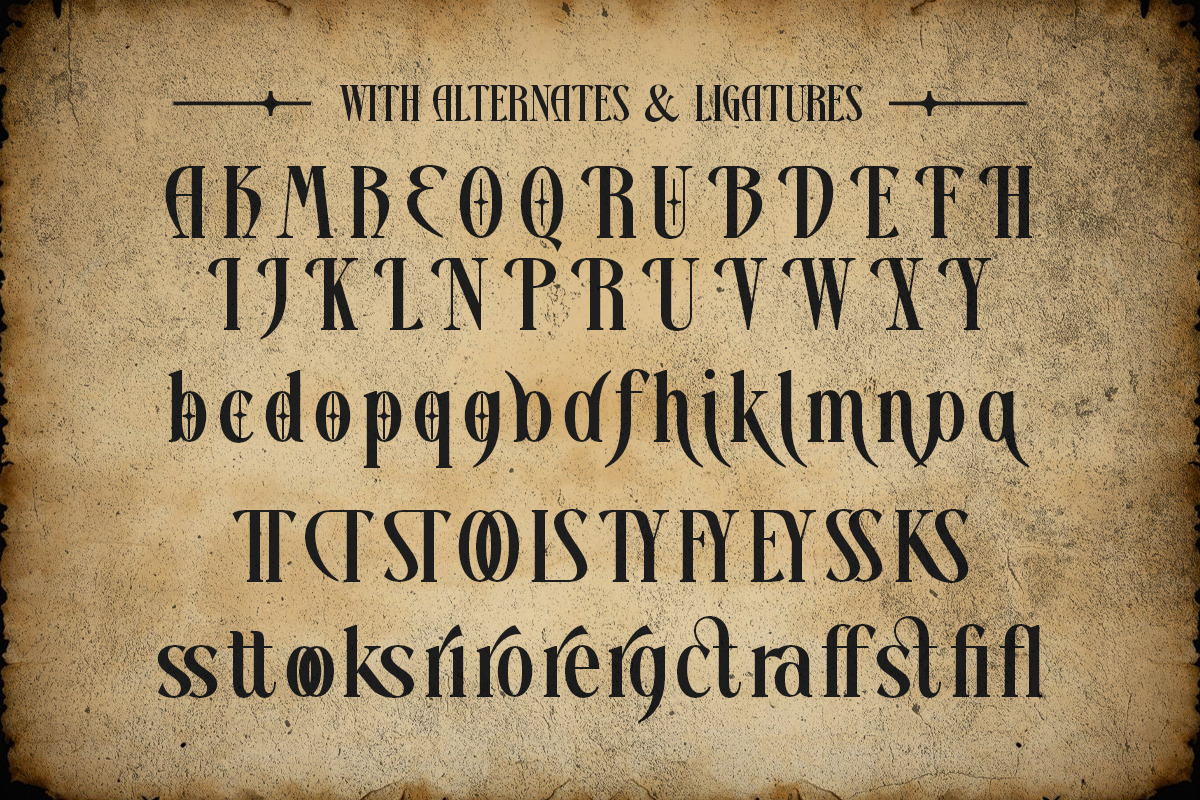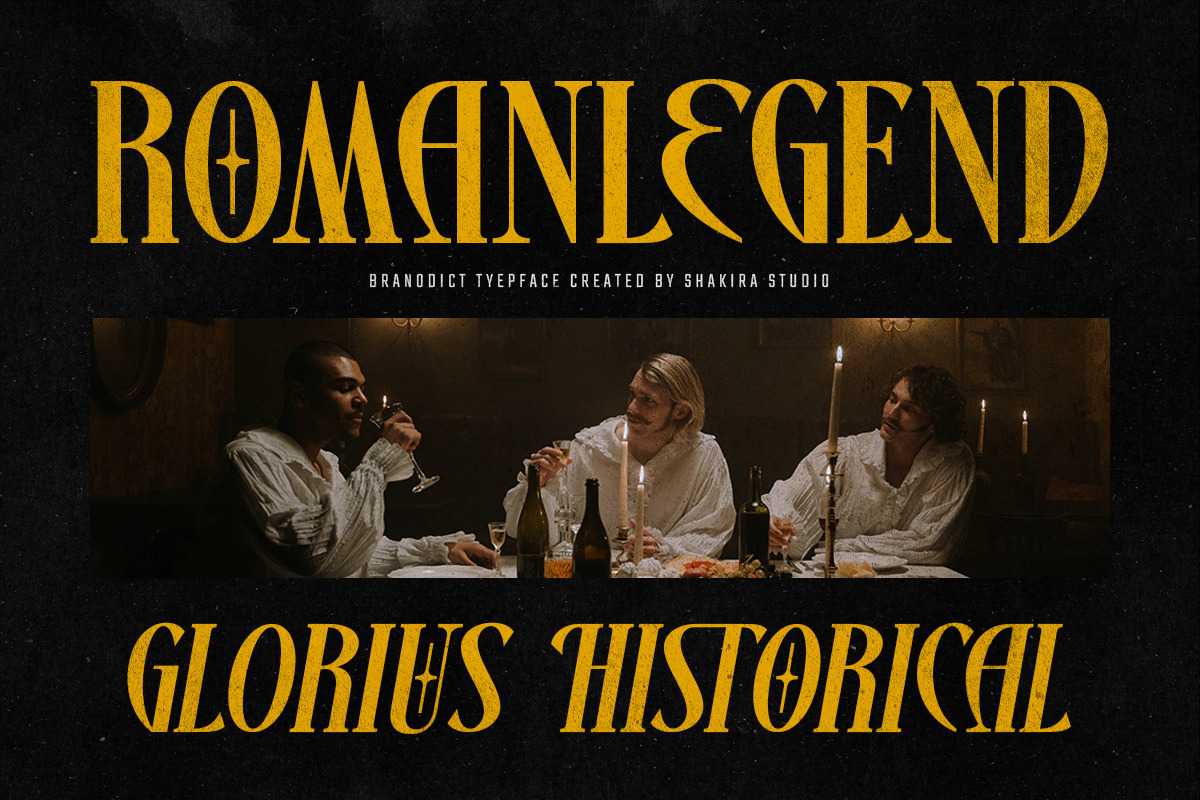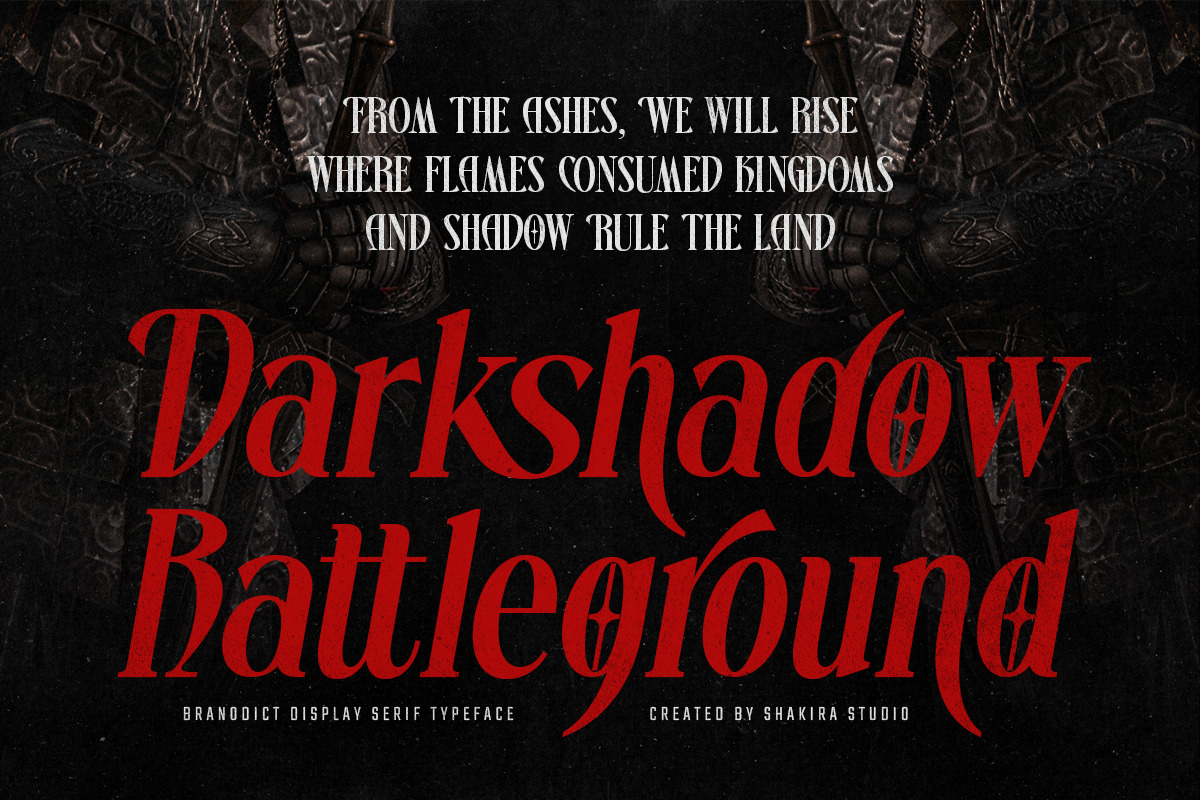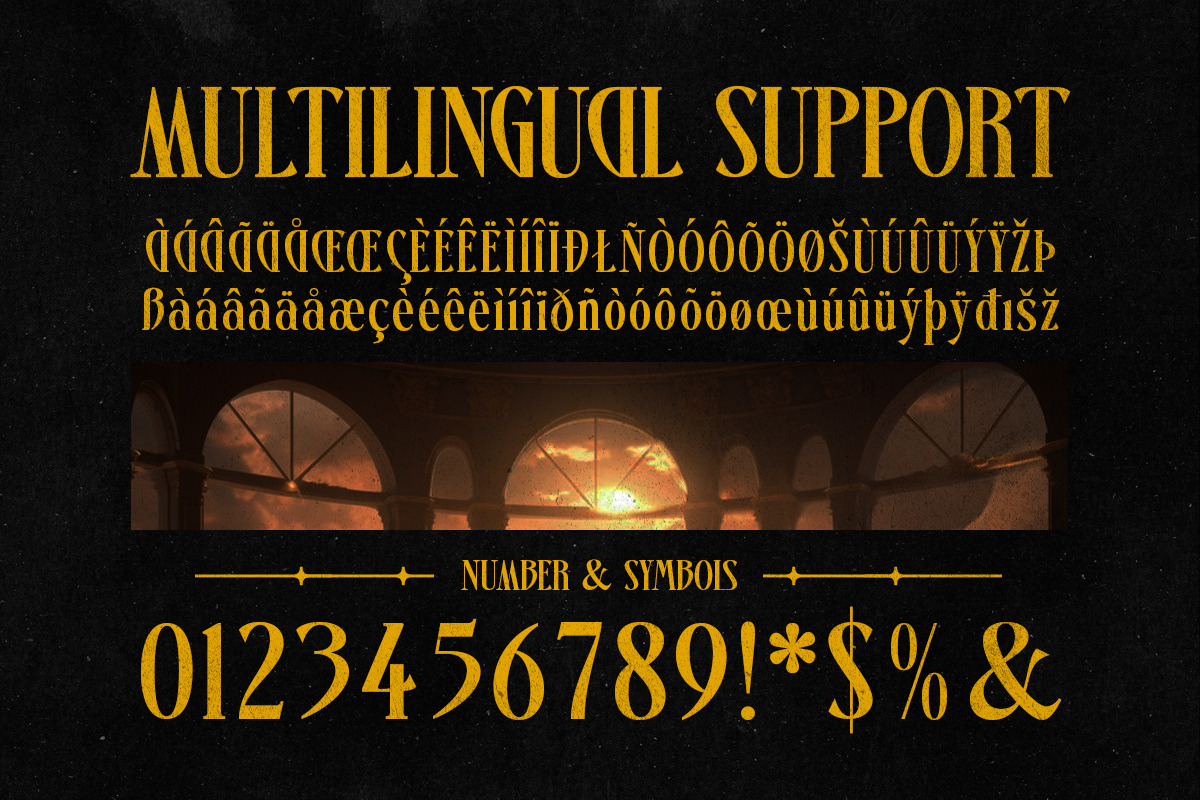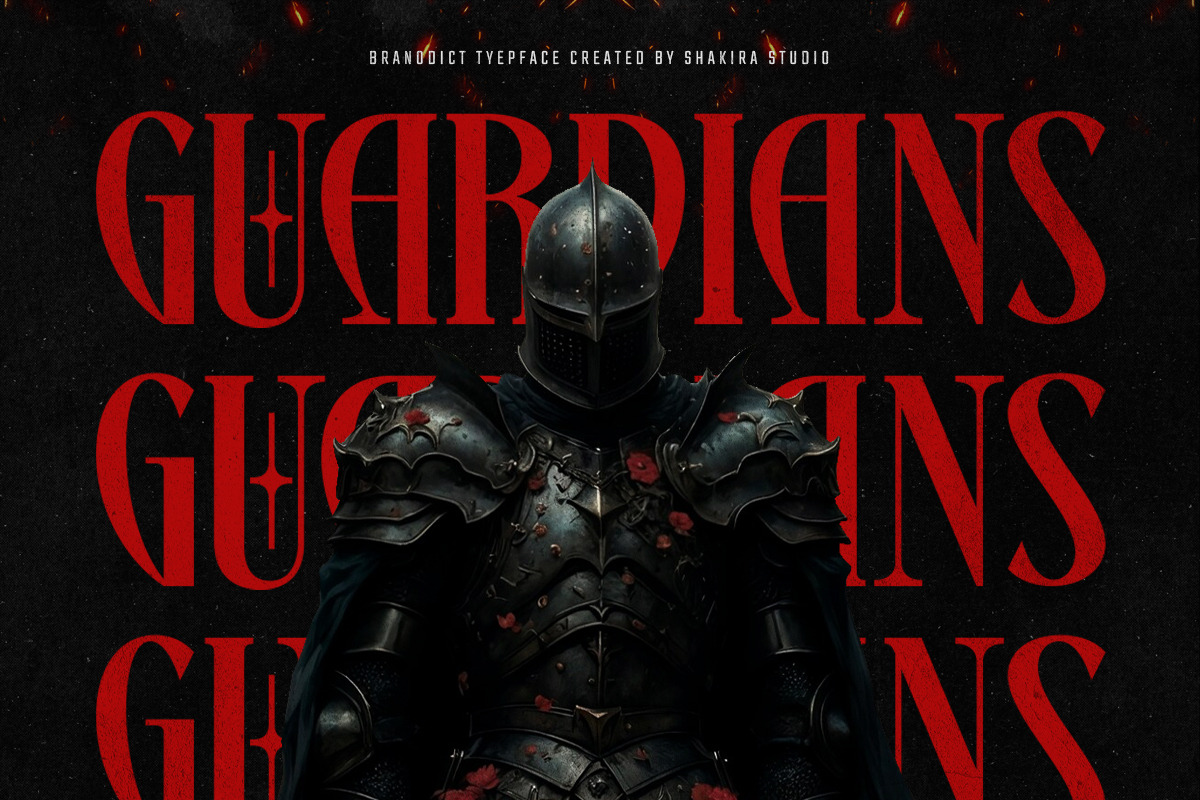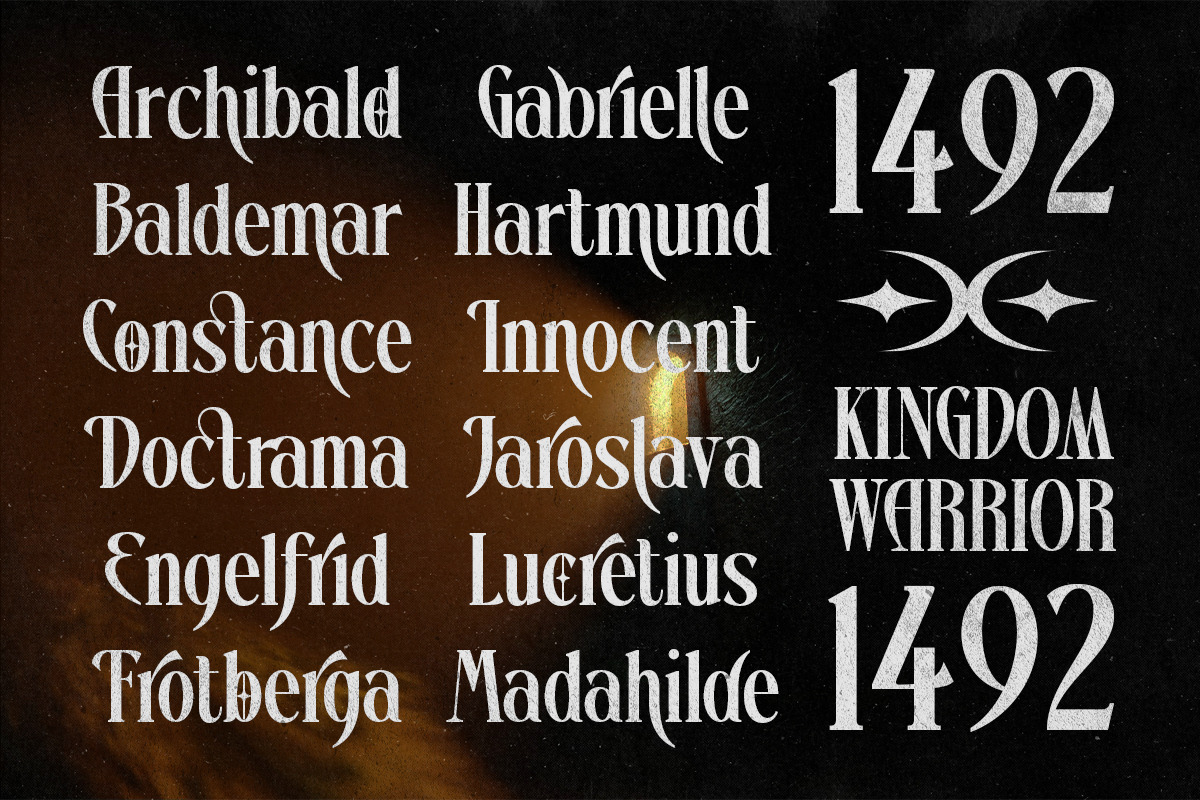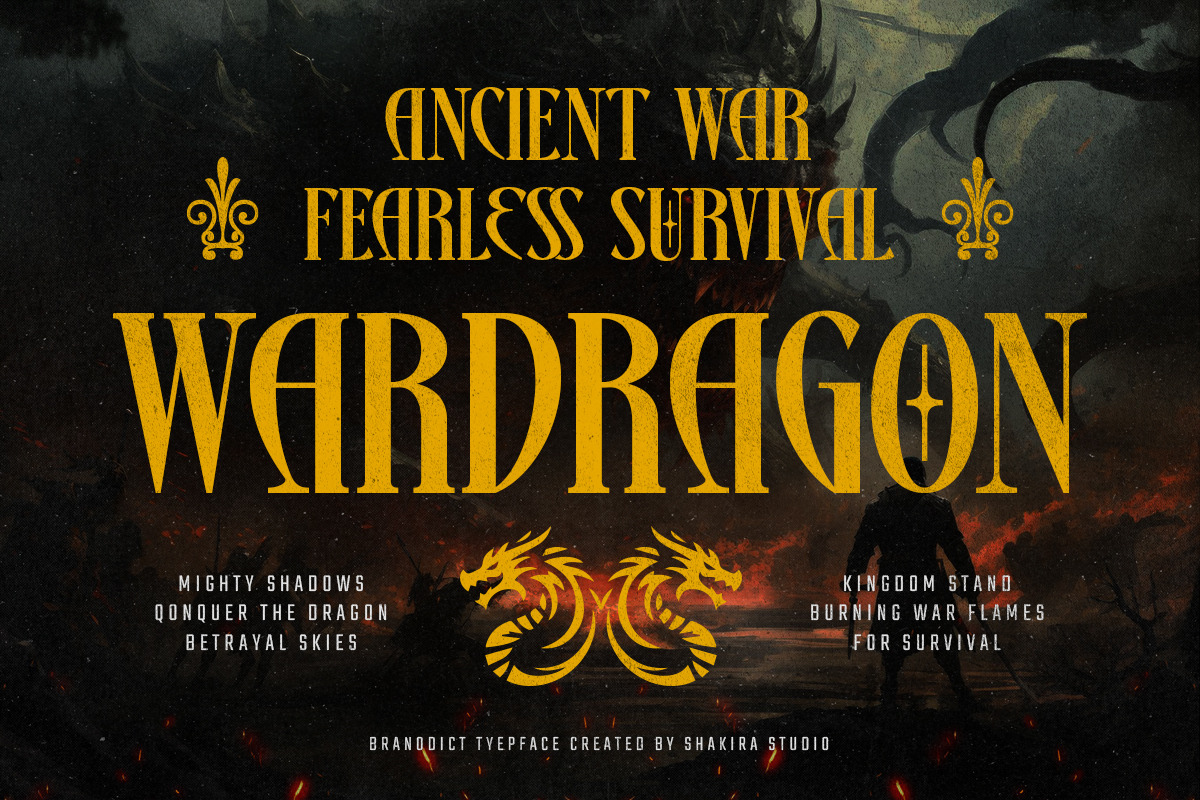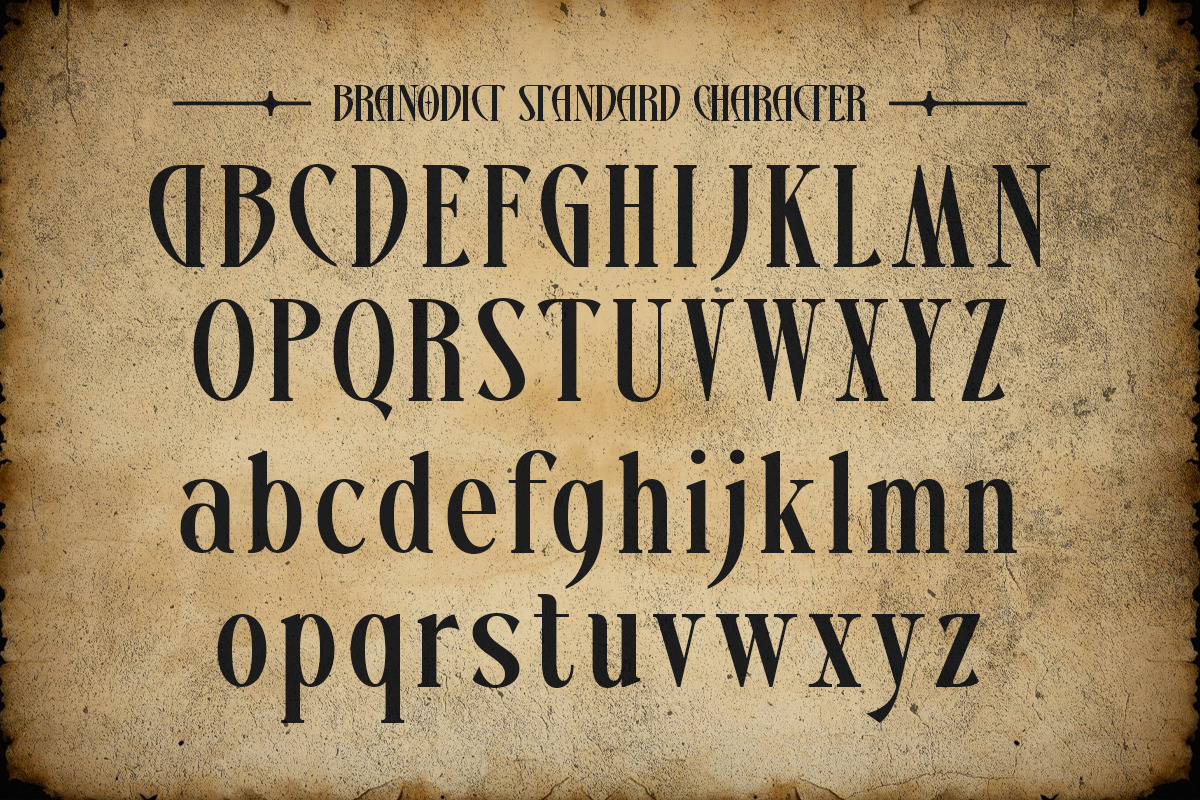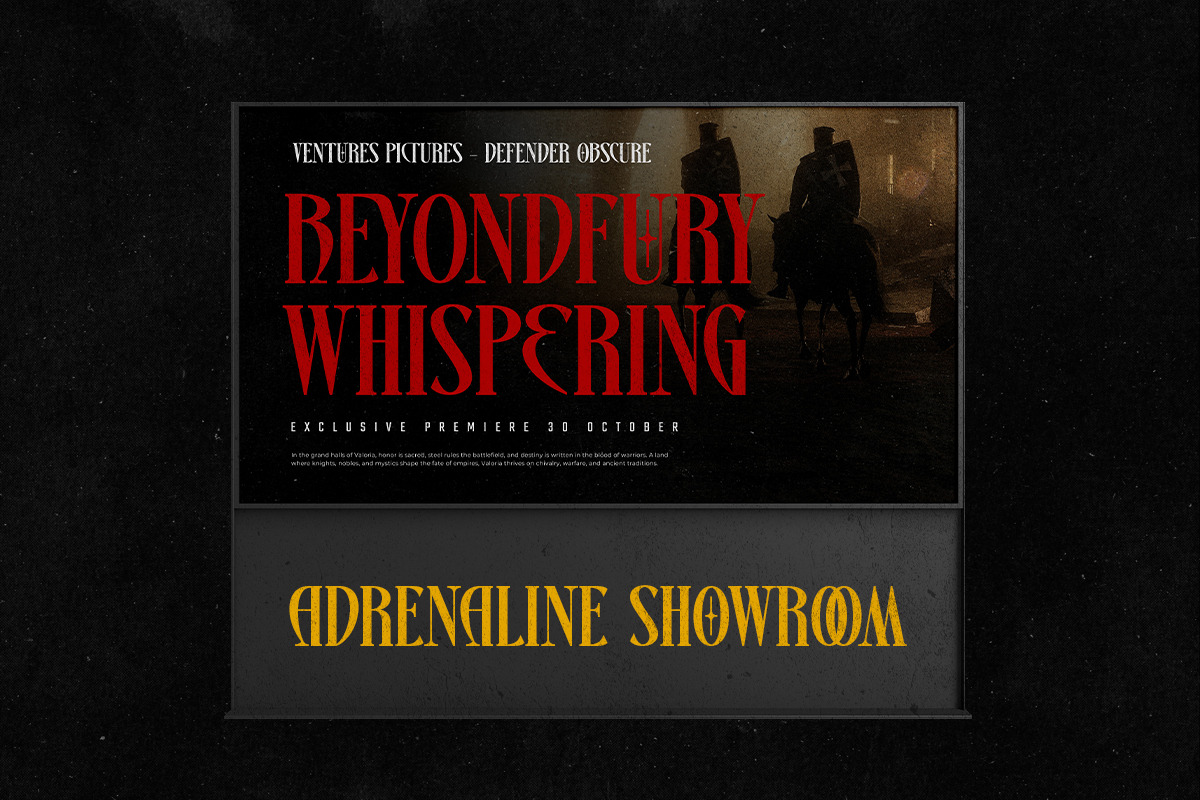
Branodict - Modern Display Serif
Branodict - Modern Display Serif Font for Impactful Branding
Branodict is a commanding display serif that merges contemporary sharpness with classic elegance. Featuring both regular and italic versions with premium alternates and ligatures, this typeface is engineered to create striking logos, memorable branding, and sophisticated packaging designs.
Where Modern Edge Meets Timeless Sophistication
With its bold serif structure and refined italic variant, Branodict delivers unmatched versatility for brands seeking both authority and prestige. The carefully crafted alternates and ligatures enable distinctive wordmark creation with perfect typographic harmony.
Premium Features Include:
- Bold Serif Display - Strong letterforms with elegant proportions
- Dual Style Versions - Regular & italic for dynamic applications
- Exclusive Alternates - 25+ special glyphs for unique branding
- Precision Ligatures - Seamless letter connections
- Extended Language Support - Full Latin character set
Make Your Mark with Branodict's Authoritative Presence Ideal for:
- Luxury fashion branding
- Premium product packaging
- Corporate identity systems
- Magazine headline typography
- High-impact advertising